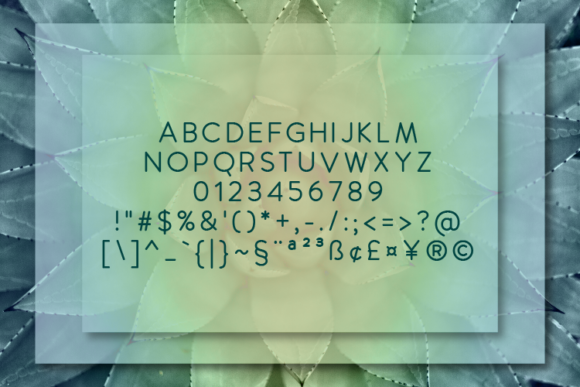
Introduction to Manolo Bold Font
As a designer, you know that sometimes the perfect font can make all the difference in bringing your creative project to life. You’re staring at a blank canvas, trying to decide on the perfect typography to match your vision. And then, it hits you – the perfect font that will elevate your design and make it truly stand out. For many designers, that font is Manolo Bold Font.
With its simple yet elegant design, Manolo Bold Font is a versatile font that can be used for a variety of applications, from branding and websites to photos and titles. Its high-quality design makes it a valuable resource for designers looking to add a touch of sophistication to their work. And the best part? It’s available for free download, making it an accessible design resource for creatives of all levels.
Whether you’re working on a personal project or a professional design, Manolo Bold Font is a great choice for anyone looking to add a touch of elegance to their work. With its transparent background and clean design, it’s the perfect addition to any design project.
Key Features of Manolo Bold Font
- High-quality typography with a clear and modern design, perfect for creative projects.
- Includes 100 glyphs, covering a wide range of languages, making it a versatile design resource.
- Unique characteristic: The font’s bold and elegant design makes it perfect for titles, headings, and other prominent text elements in creative projects.
Honest Review: Manolo Bold Font
As a designer, I’m always on the lookout for high-quality design resources to elevate my creative projects. Recently, I stumbled upon the Manolo Bold Font, which caught my eye with its sleek and modern aesthetic. In this review, I’ll share my honest thoughts on this font.
- High-quality design: The Manolo Bold Font is indeed a high-quality font that looks great on various backgrounds, including transparent backgrounds.
- Modern aesthetic: The font’s modern design makes it perfect for creative projects that require a sleek and contemporary look.
- Limited character set: The Manolo Bold Font only includes a limited character set, which might not be suitable for extensive writing projects.
- Not ideal for small text: Due to its bold design, the font might not be the best choice for small text, as it can become difficult to read.
Overall, I’m impressed with the Manolo Bold Font’s modern design and high-quality aesthetic. While it has some limitations, it’s an excellent resource for designers who need a bold and stylish font for their creative projects. If you’re looking for a free design resource with a modern twist, the Manolo Bold Font is definitely worth checking out.
When using the Manolo Bold Font, you can also use a transparent background to create a more modern and sleek design. This is especially useful for creating logos, icons, and other design elements.
The Manolo Bold Font is commonly used in:
- Logos and branding
- Infographics and data visualizations
- Web design and user interface
- Print design and marketing materials